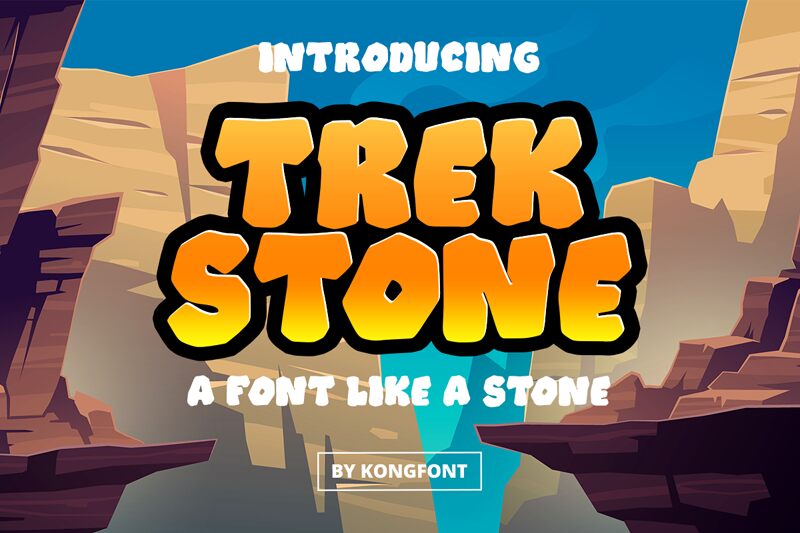
Trekstone font is a cartoon display font designed by Kong Font. The font has an irregular rugged blocky appearance with rock-like textures to give a playful carved effect. Its bold presence makes it suitable for use in a lot of designs that should stand out.
Trekstone will do exceptionally well in power movie and book titles, posters, magazine covers, apparels and merchandise designs, accessories branding, video games or applications themes and interfaces, party, restaurant menus or offers banners/flyers, and more.